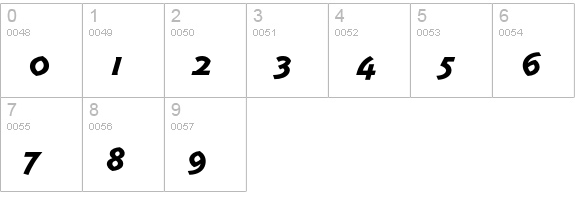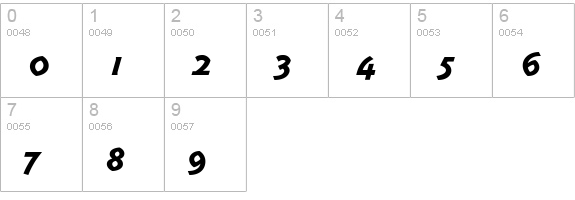
TriplexItalicExtraboldOldstyle Font Details
TriplexItalicExtraboldOldstyle is a visually striking and elegant font that seamlessly combines the classic charm of old-style typefaces with a modern twist. It exudes a sense of timeless sophistication and versatility, making it perfect for a wide range of design projects. With its unique blend of boldness and elegance, TriplexItalicExtraboldOldstyle commands attention and adds a touch of luxury to any design. Its distinct italicized form adds a sense of dynamism and movement, making it particularly well-suited for headings, titles, and branding materials. The exquisite detailing and carefully crafted curves of TriplexItalicExtraboldOldstyle give it a sense of refinement and exclusivity. Each letter has been meticulously designed to ensure optimal legibility and readability at various sizes, making it equally suitable for both print and digital applications. One of the most remarkable aspects of TriplexItalicExtraboldOldstyle is that it is freely available to download at FontsMarket.com. This means that designers and creatives can effortlessly access and utilize this extraordinary font to elevate their projects without any financial constraints. Whether you are designing a logo, creating eye-catching advertisements, or crafting elegant invitations, TriplexItalicExtraboldOldstyle is the perfect choice to make your design stand out. Its bold and distinctive appearance will captivate your audience and leave a lasting impression. Embrace the timeless beauty and versatility of TriplexItalicExtraboldOldstyle, and elevate your designs to new heights. Download it today for free at FontsMarket.com and let your creativity soar.